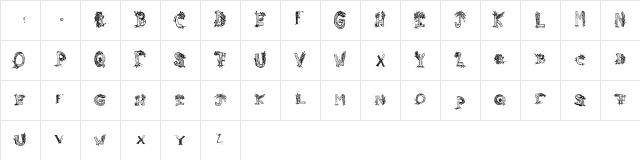
Complete Heavenly Rooted Regular glyph index. Displaying only characters natively supported by Heavenly Rooted Regular font.
Heavenly Rooted is a composed and adaptable typeface that performs quietly and consistently across a wide range of design contexts.
Who designed the Heavenly Rooted Regular font?